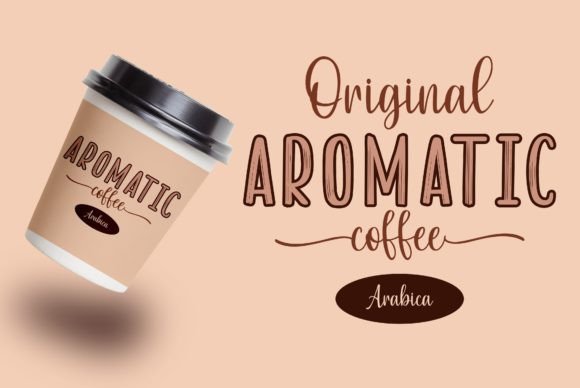
Authentic Urban Font: Elevate Your Design with Style and Sophistication
In the world of typography, fonts play a crucial role in conveying the tone and personality of a brand. When it comes to creating a lasting impression, the right font can make all the difference. Introducing Authentic Urban, a stunning duo font that combines a fancy script and a brush sans to bring a touch of elegance and creativity to your design projects.
What is Authentic Urban Font?
Authentic Urban is a carefully crafted font duo that consists of two distinct styles: a fancy script and a brush sans. This versatile font is designed to cater to a wide range of design needs, from branding and website design to invitation cards and more. The Authentic Urban font is perfect for designers looking to add a touch of sophistication and style to their projects.
Key Features of Authentic Urban Font
- Fancy Script: The fancy script font is designed to bring a stand-out look to your designs. Its elegant and cursive style makes it perfect for creating eye-catching headlines, titles, and emphasis text.
- Brush Sans: The brush sans font adds a sleek and creative touch to your designs. Its unique texture and modern style make it ideal for creating a wide range of design elements, from body text to captions.
- Versatility: Authentic Urban font is designed to be versatile and adaptable, making it suitable for a wide range of design applications, including branding, website design, invitation cards, and more.
Why Choose Authentic Urban Font?
With so many fonts available, why choose Authentic Urban? Here are just a few reasons why this font duo stands out from the rest:
- Unique Style: Authentic Urban font offers a unique and distinctive style that sets it apart from other fonts. Its blend of elegance and creativity makes it perfect for designers looking to create a lasting impression.
- High-Quality Design: The font is carefully designed to ensure high-quality output, even at small sizes. This makes it perfect for use in a wide range of design applications.
- Time-Saving: With Authentic Urban font, you can save time and effort by using a single font duo for multiple design projects.
How to Use Authentic Urban Font?
Using Authentic Urban font is easy and straightforward. Here are a few tips to get you started:
- Pairing: Experiment with pairing the fancy script and brush sans fonts to create a unique and eye-catching design.
- Color: Use Authentic Urban font in a variety of colors to add depth and contrast to your design.
- Sizing: Experiment with different font sizes to create visual hierarchy and emphasis in your design.
Design Applications for Authentic Urban Font
Authentic Urban font is versatile and can be used in a wide range of design applications, including:
- Branding: Use Authentic Urban font to create a unique and memorable brand identity.
- Website Design: Add a touch of elegance and sophistication to your website with Authentic Urban font.
- Invitation Cards: Create stunning invitation cards with Authentic Urban font.
- Print Design: Use Authentic Urban font in a variety of print design applications, including brochures, flyers, and posters.
In conclusion, Authentic Urban font is a stylish and beautiful duo font that is perfect for designers looking to elevate their design projects. With its unique blend of elegance and creativity, this font duo is sure to make a lasting impression. Whether you’re working on a branding project, website design, or invitation card, Authentic Urban font is the perfect choice.